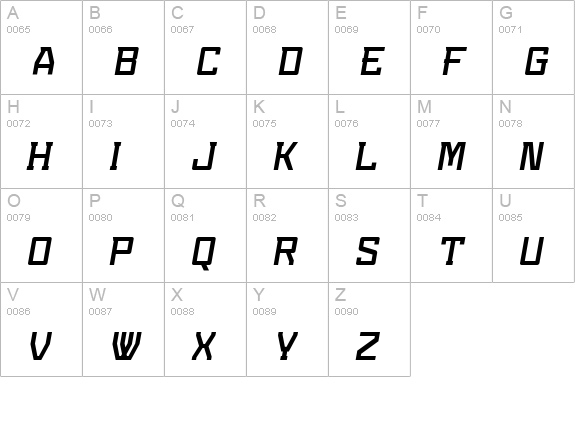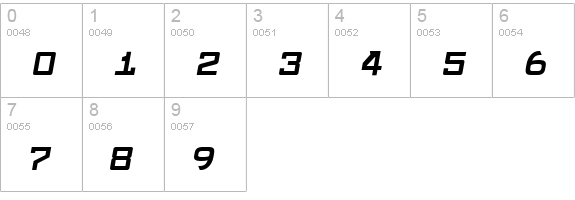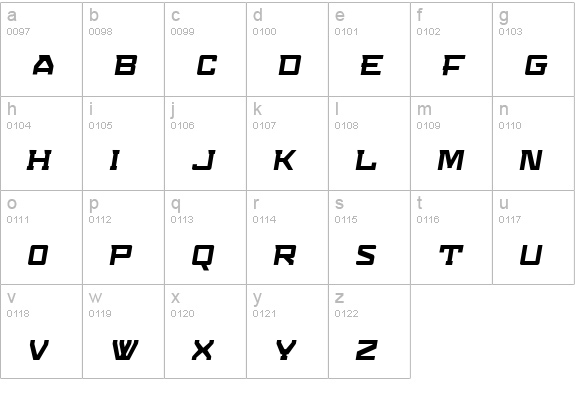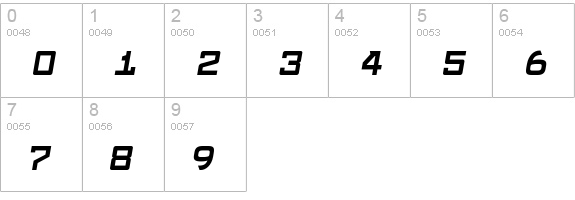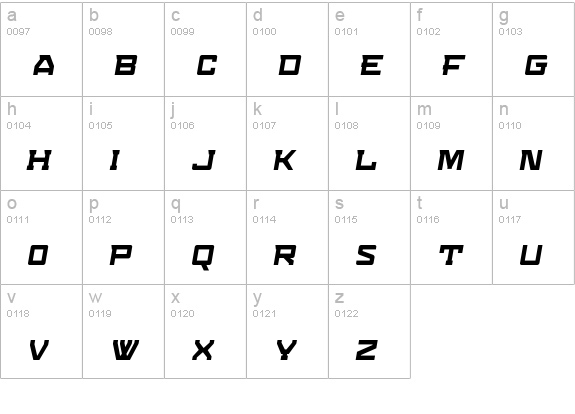
Konvexist-SmallCapsOblique Font Details
Konvexist-SmallCapsOblique font is a stylish and sophisticated typeface that combines the elegance of small caps with a modern twist of oblique slant. This unique font is perfect for adding a touch of sophistication to any design project, whether it be for branding, editorial design, or web design. What makes Konvexist-SmallCapsOblique font even more appealing is that it is available for free download at FontsMarket.com. This means that you can easily access this beautiful font and use it in your projects without any cost. With its sleek and contemporary look, Konvexist-SmallCapsOblique font is sure to elevate your designs and make them stand out.